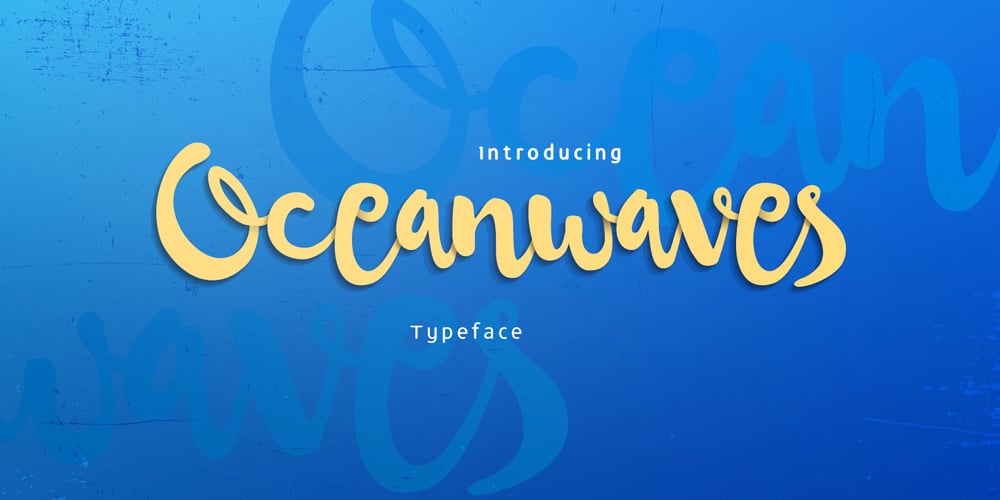
Oceanwaves Font Family was designed by Rendy Yanwar and published by me55enjah. Oceanwaves contains 1 styles and family package options. Oceanwaves Typeface. Base on brush hand lettering character, this playful script can make your text so much fun. Inspired by curly waves at the ocean that we like to play with. Including this uppercase, lowercase, punctuation, numbers, alternate characters or ligatures into your design make it more unique & catchy.